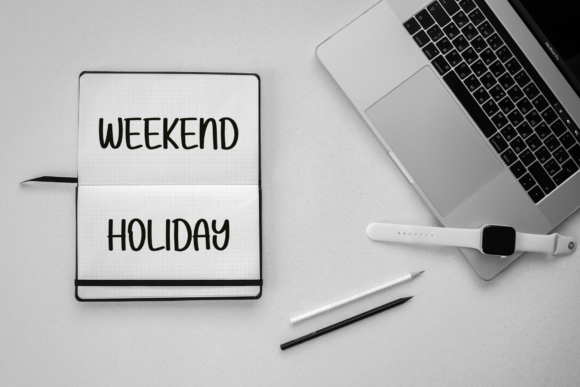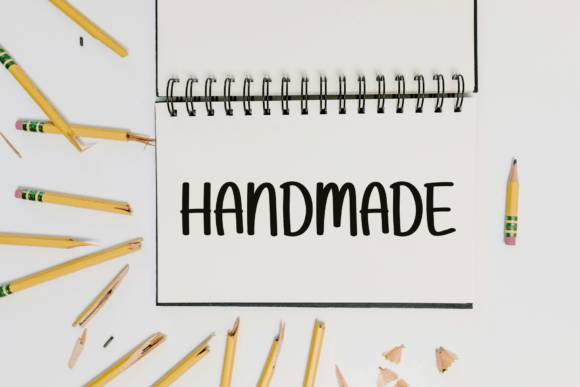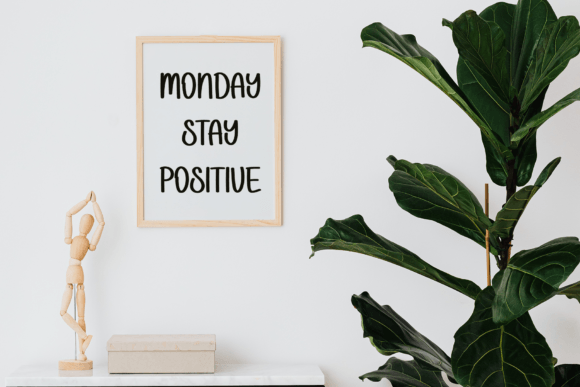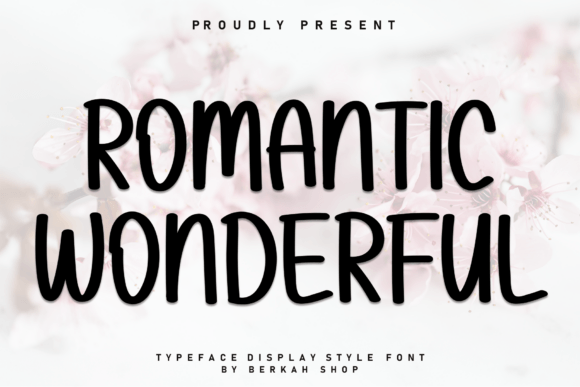
Introduction to Romantic Wonderful Font
Romantic Wonderful is a handwritten font that looks like it was drawn with a marker.
Having a relaxed and sporty feel, it is very suitable for branding, logos, wedding supplies, greeting cards, fashion, lookbooks, marketing promotions, and whenever you want your design to look luxurious and elegant but still casual .